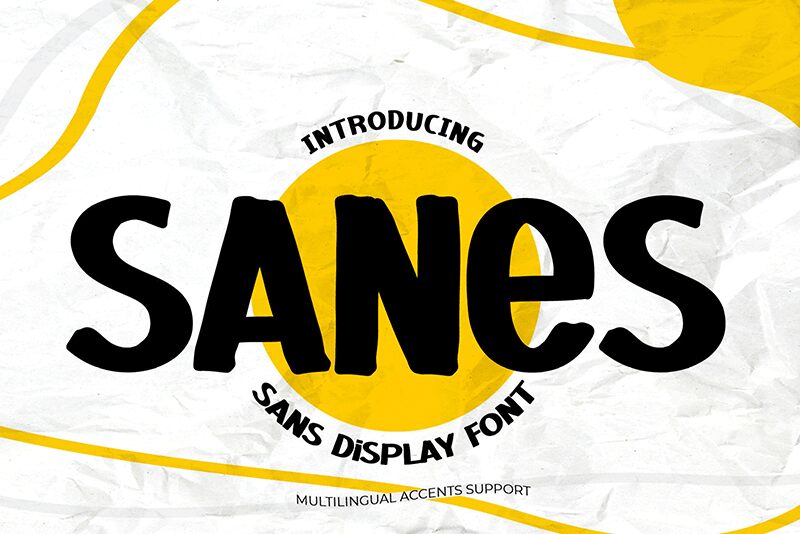
Sanes
Sanes, crafted by the innovative minds at Gassstype, is not your ordinary brush font. Bold and unapologetically modern, this Sans Display Font embodies a creative movement that captures the essence of spontaneity and swift elegance. With its unique allcaps feature, Sanes exudes an aura of authenticity that makes it an unrivaled choice for designers seeking to infuse a touch of natural flair into their work.
Whether you're designing a logo that demands attention or a poster that speaks volumes with minimalism, Sanes stands out as the go-to typeface. Its suitability spans across various creative spectrums-from branding to packaging, and from greeting cards to website design-elevating every project with its distinctive sans style. If your vision involves crafting visuals that are both contemporary and captivating, let Sanes transform your ideas into reality with its unparalleled charm and bold character.